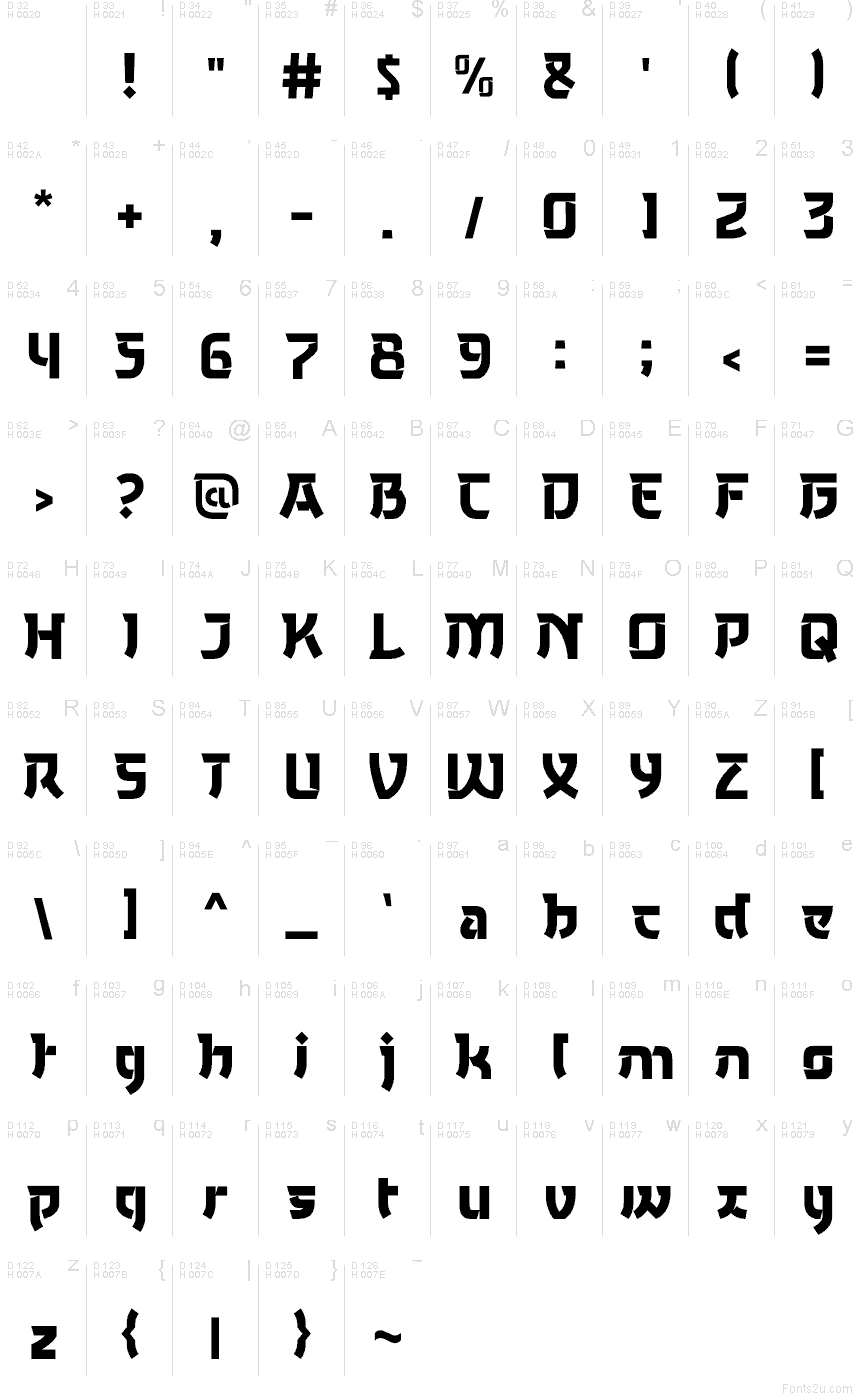
MAMORU
Mamoru font by Typeline Studio is a free foreign faux Japanese typeface that hits with bold, blocky forms and sharp, carved angles. Each letter feels like it’s been cut from solid ink, with chunky strokes and subtle curves that suggest signage, arcade titles, or retro martial-arts posters. The rhythm is tight and compact, giving headlines a dense, powerful presence that instantly signals “East-Asian-inspired” without becoming unreadable.
Using Mamoru, you can brand sushi bars, ramen pop-ups, food trucks, retro game covers, anime fan projects, posters, and bold merch graphics with a single, punchy voice. This free font shines at larger sizes where its angular cuts and heavy weight can really dominate the layout. Try pairing Mamoru with a clean, neutral sans serif for body text and keep plenty of negative space around it so those thick, inky shapes can breathe.